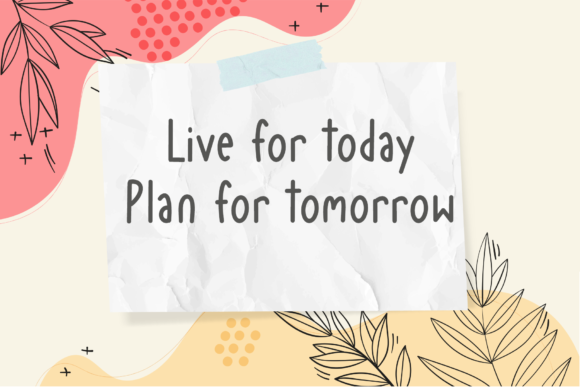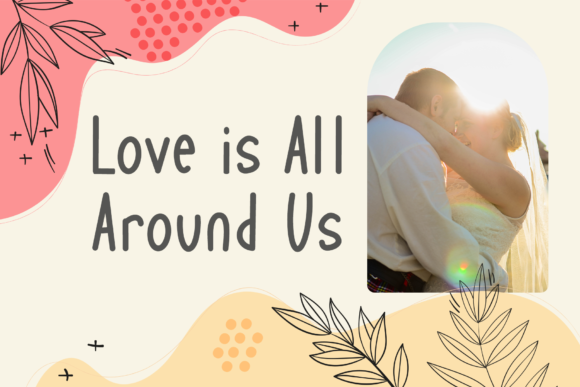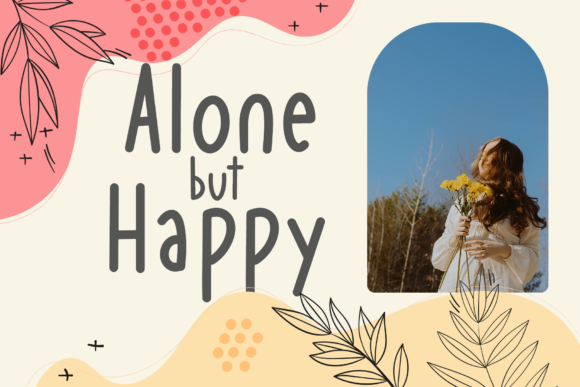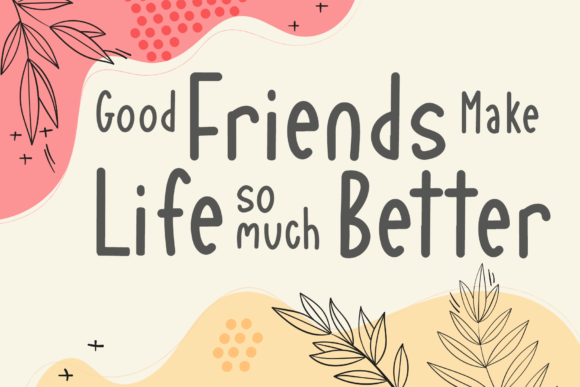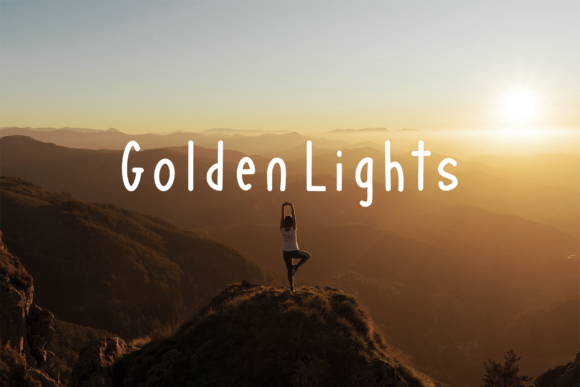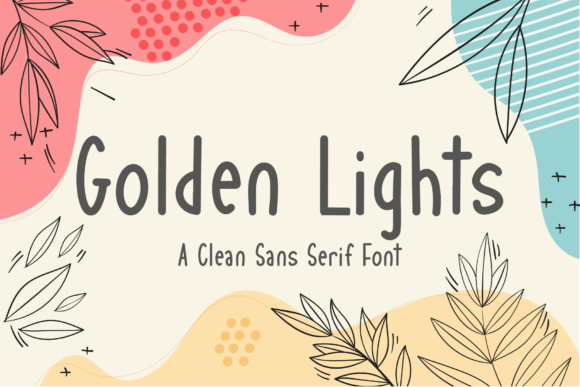
Introducing Golden Lights Font: The Perfect Addition to Your Design Toolbox
Are you a designer, crafter, or educator looking for a font that can add a personal touch to your work? Look no further than Golden Lights Font, a cute and simple lettered handwritten font that’s perfect for chalkboard quotes, teaching materials, and more. With its authentic look and feel, Golden Lights Font is sure to become a staple in your design toolbox.
What is Golden Lights Font?
Golden Lights Font is a beautifully crafted handwritten font that’s designed to mimic the look of chalkboard writing. Its simple and elegant design makes it perfect for a variety of applications, from educational materials to craft projects. The font’s authentic look and feel will add a personal and realistic touch to your designs, making them stand out from the crowd.
Features of Golden Lights Font
- Cute and Simple Design: Golden Lights Font features a cute and simple design that’s perfect for a variety of applications.
- Handwritten Style: The font’s handwritten style gives it a personal and realistic feel that’s perfect for chalkboard quotes and teaching materials.
- Authentic Look: The font’s authentic look and feel will add a touch of realism to your designs, making them stand out from the crowd.
- Easy to Read: Golden Lights Font is easy to read, making it perfect for educational materials and other applications where clarity is key.
Uses for Golden Lights Font
Golden Lights Font is a versatile font that can be used for a variety of applications, including:
- Chalkboard Quotes: The font’s chalkboard-inspired design makes it perfect for creating eye-catching quotes and posters.
- Teaching Materials: Golden Lights Font is perfect for educational materials, such as worksheets, handouts, and presentations.
- Craft Projects: The font’s cute and simple design makes it perfect for craft projects, such as scrapbooking, card making, and DIY signs.
- Social Media Graphics: Golden Lights Font can be used to create eye-catching social media graphics, such as Instagram posts and Facebook quotes.
Benefits of Using Golden Lights Font
There are many benefits to using Golden Lights Font in your designs, including:
- Unique and Eye-Catching: The font’s unique and eye-catching design will help your designs stand out from the crowd.
- Personal Touch: The font’s handwritten style gives it a personal touch that’s perfect for adding a human element to your designs.
Tips for Using Golden Lights Font
Here are a few tips for using Golden Lights Font in your designs:
- Use it with Chalkboard Backgrounds: The font’s chalkboard-inspired design looks great with chalkboard backgrounds, making it perfect for creating eye-catching posters and signs.
- Experiment with Colors: Golden Lights Font looks great in a variety of colors, so don’t be afraid to experiment and find the perfect color for your design.
- Use it with Other Fonts: The font can be paired with other fonts to create a unique and eye-catching design.
| Font Name | Golden Lights Font |
| Author | Phantom Creative Studio |
Golden Lights Font is a cute and simple lettered handwritten font that’s perfect for designers, crafters, and educators. Its authentic look and feel will add a personal touch to your designs, making them stand out from the crowd. With its versatility, ease of use, and affordability, Golden Lights Font is a great addition to any design toolbox.